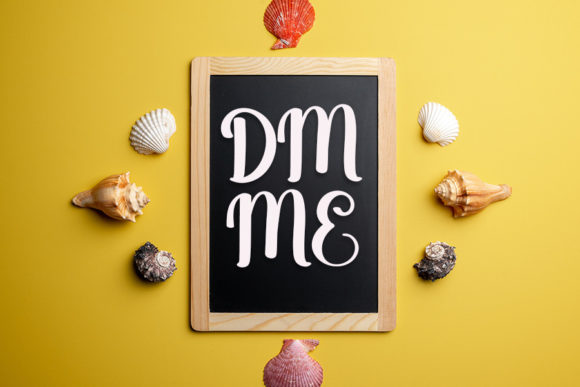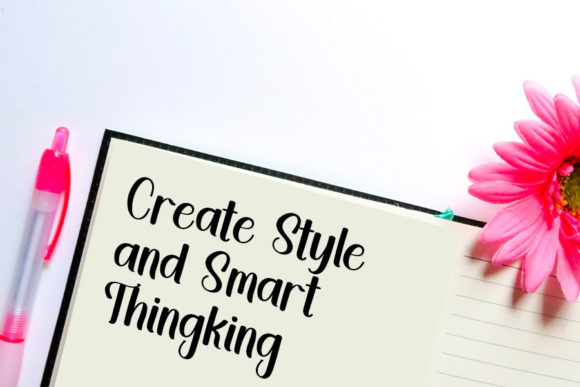
Snowwhite Font
db-ku.com - Script & Handwritten -- Snowwhite is a lovely and delicate script font that exudes elegance and class. This font was particularly crafted for those who need a beautiful and refreshing look to their designs.